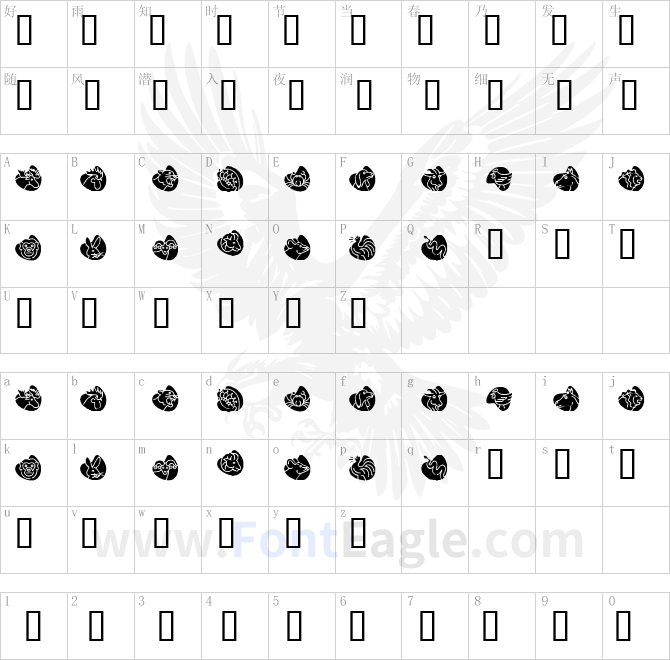
KR-Animal-Dings is a great font, widely used in graphic design, single-page menu design, poster design and other fields, and is deeply loved by designers.KR-Animal-Dings download.